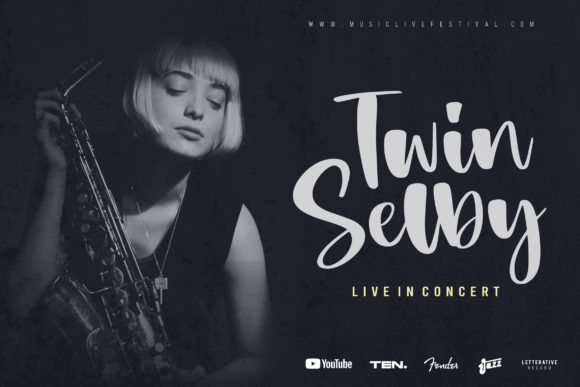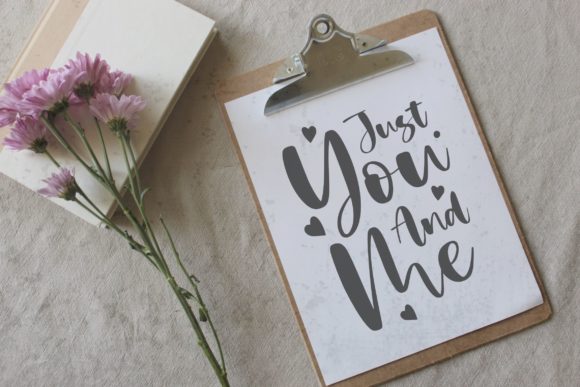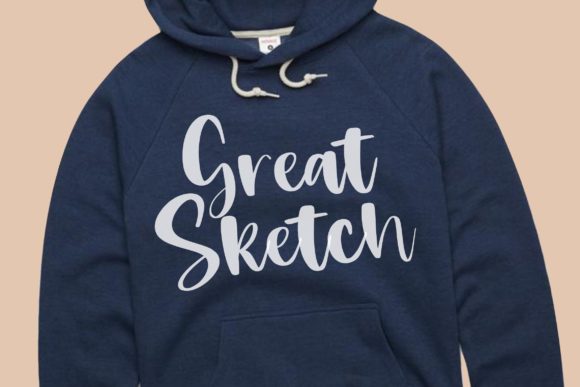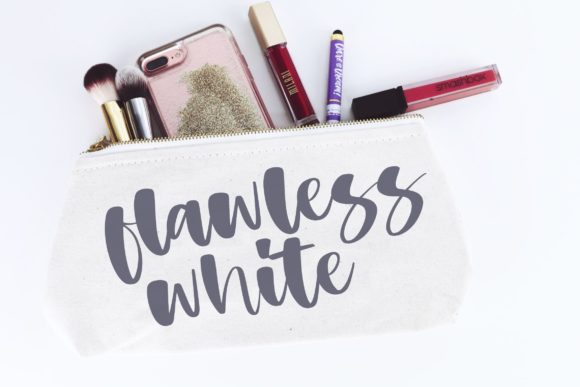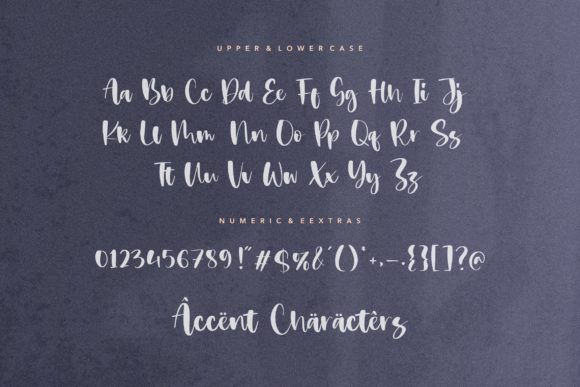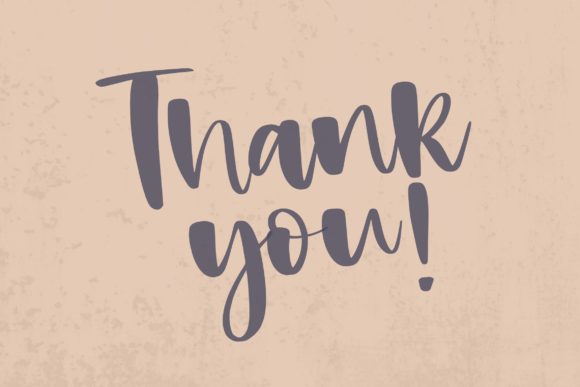
The Adorable Font: A Bold and Quirky Companion for Your Design Projects
I’ll never forget the time I was working on a project for a client’s children’s book. I had spent hours agonizing over the perfect layout, illustrations, and color palette, but something was still off. It wasn’t until I stumbled upon the Adorable font that the entire design came together. This bold and fun handwritten font added a touch of whimsy and playfulness that perfectly captured the essence of the story. In this article, I’ll share my love for the Adorable font, its features, and how to make the most of it in your design projects.
An Honest Review of Adorable Font
What I Love About Adorable Font
• ✨ Bold and eye-catching: Adorable font is perfect for headlines, titles, and emphasis text.
• ✅ Quirky and playful: This font adds a touch of personality to any design project.
• 🌈 Versatile: Adorable font works well in a variety of contexts, from children’s books to social media graphics.
• 💻 Easy to read: Despite its bold and playful nature, Adorable font is surprisingly easy to read, even at smaller sizes.
While Adorable font is an excellent choice for many design projects, there are a few things to keep in mind:
• 🤔 Limited use in formal contexts: Adorable font is best suited for creative and playful projects. It may not be the best choice for formal or professional designs.
• ⚠️ Overuse can be overwhelming: While Adorable font is beautiful, using it excessively can make your design look cluttered and overwhelming.
The Backstory of Adorable Font
While the true origins of Adorable font are unknown, it’s likely that it was designed with the intention of creating a fun and playful font for creative projects. The designer may have been inspired by the world of children’s books, toys, and games, and sought to create a font that captured the whimsy and imagination of these themes.
Q: What is Adorable font best suited for?
A: Adorable font is perfect for creative and playful projects, such as children’s books, social media graphics, and posters.
Q: Is Adorable font easy to read?
A: Yes, despite its bold and playful nature, Adorable font is surprisingly easy to read, even at smaller sizes.